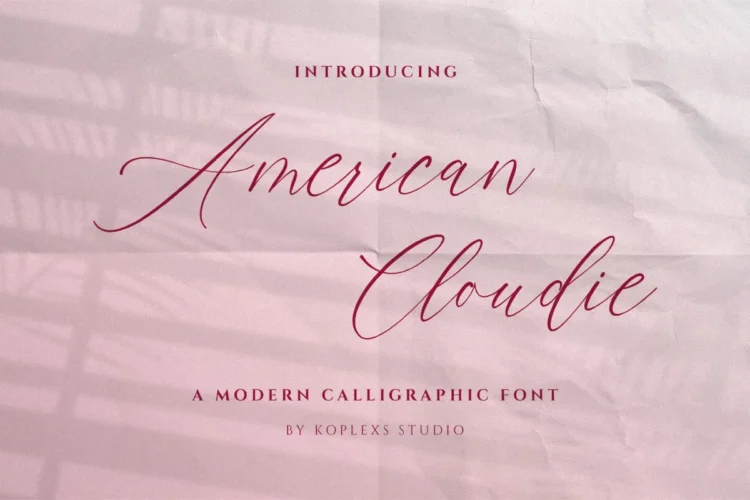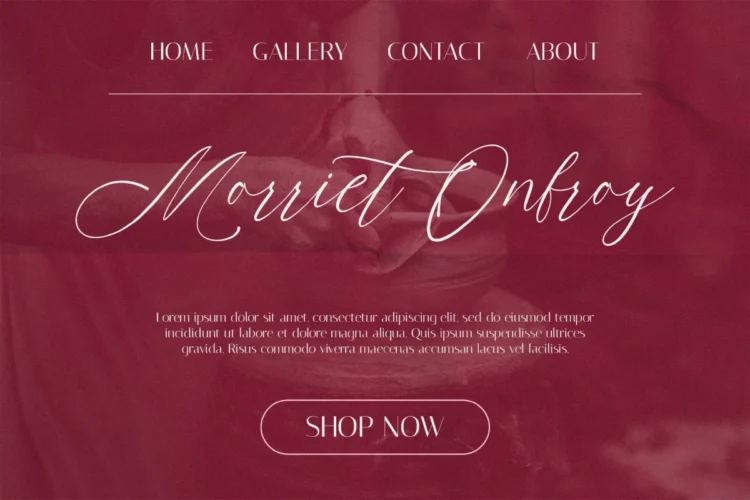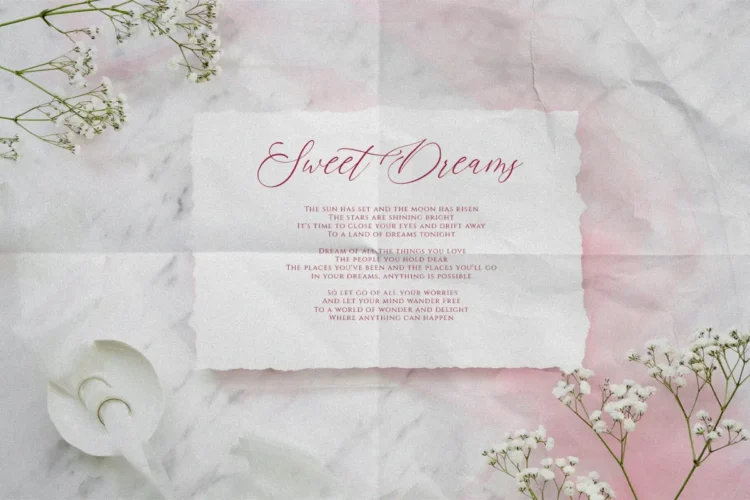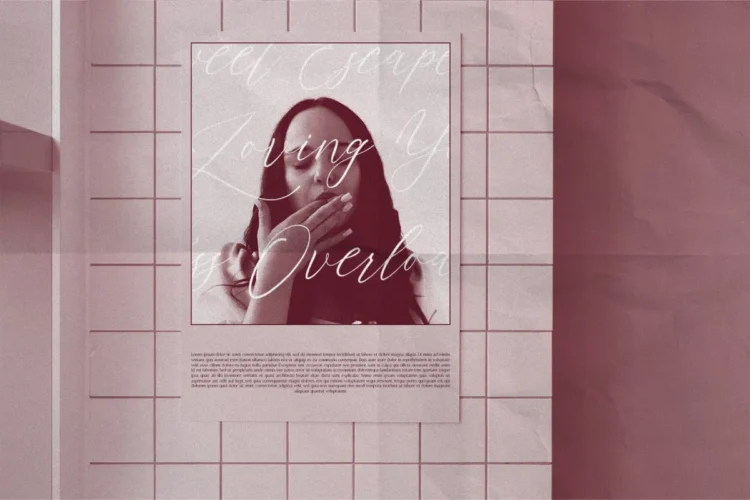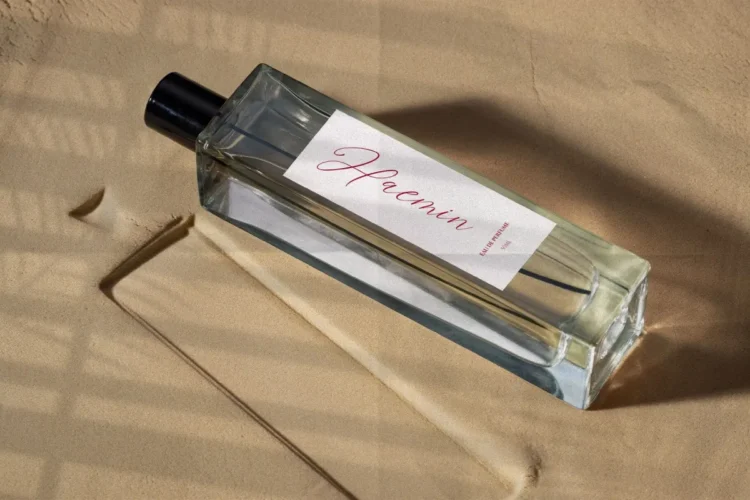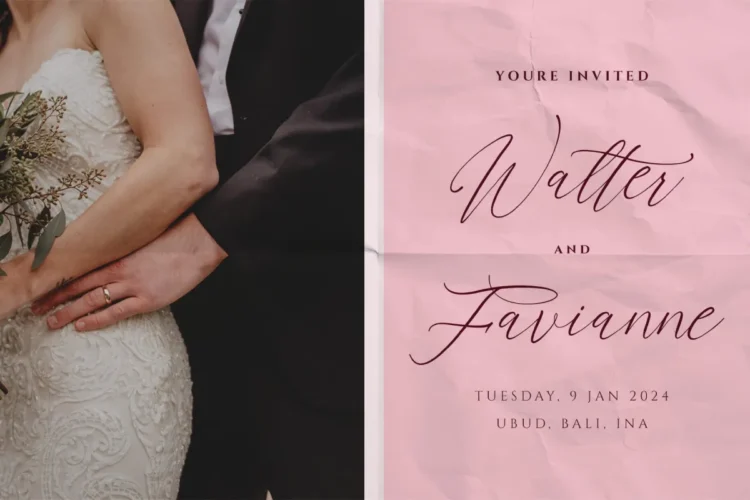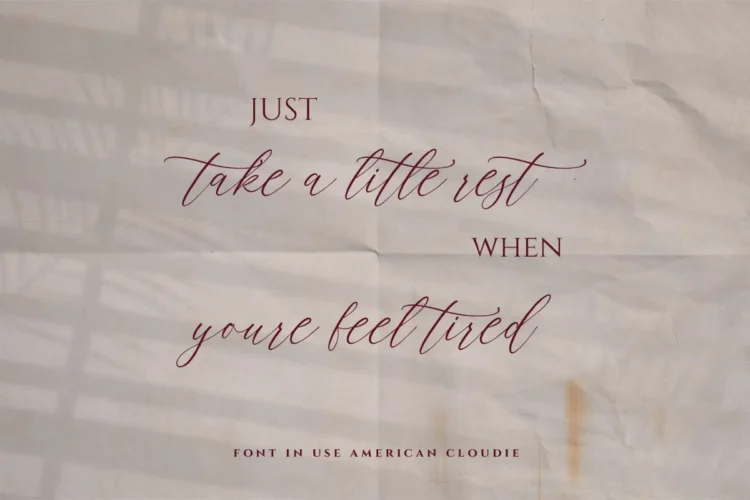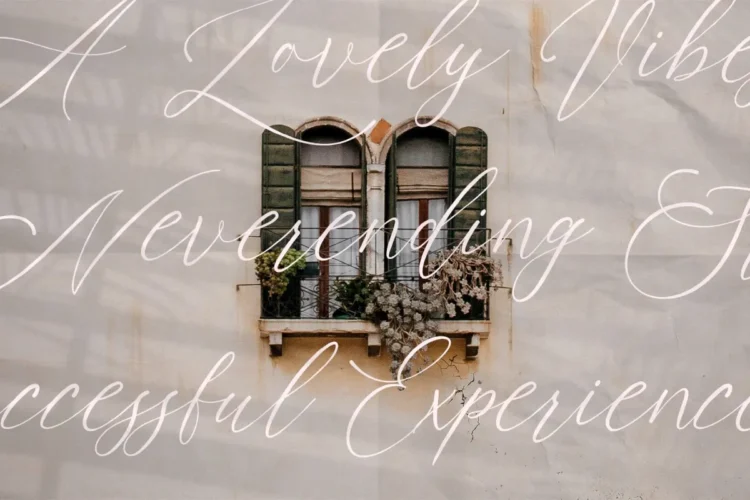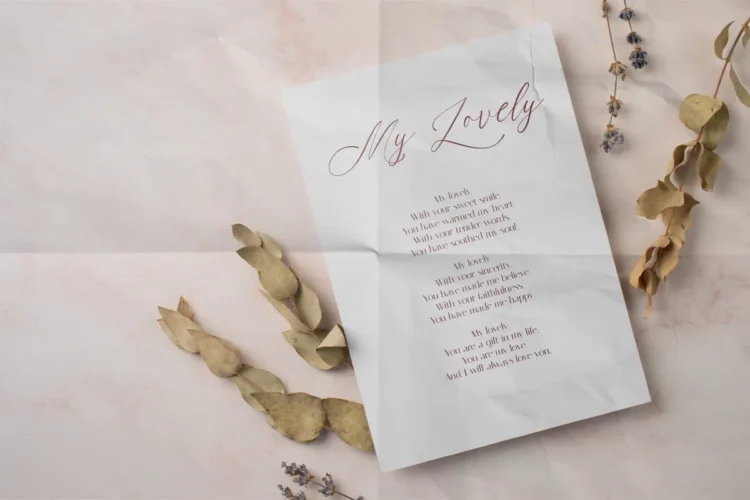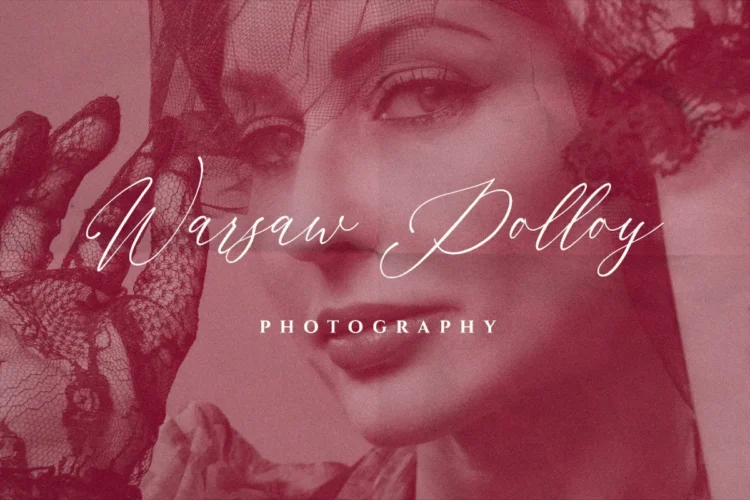
American Cloudie Font – Elegant Script & Modern Calligraphy Font for Wedding, Branding and Luxury Design
Crafted with delicate curves, flowing strokes, and a refined handwritten feel, this font delivers the perfect balance between modern elegance and natural beauty. Inspired by luxury branding and romantic calligraphy, American Cloudie is designed to make every design feel more personal, sophisticated, and unforgettable.
This script font carries the charm of authentic handwriting while maintaining the clean professionalism needed for modern creative projects. The smooth baseline and graceful letter connections create a soft and stylish appearance that instantly elevates your typography.
Whether you’re designing for a luxury brand, creating wedding stationery, or building a feminine visual identity, this Handwriting Font adds warmth and elegance without feeling overly formal. Its flowing style makes it ideal for creators who want their designs to feel premium, artistic, and effortlessly aesthetic.
American Cloudie Font is versatile and works beautifully for :
- Wedding invitations & bridal stationery
- Luxury logo design
- Beauty and cosmetic font branding
- Perfume packaging and skincare labels
- Fashion editorials and boutique branding
- Photography watermark signatures
- Social media quotes & Instagram templates
- Business cards and elegant packaging
- Website headers and modern typography layouts
- Romantic quote posters and aesthetic content
🌸 Why Designers Love American Cloudie Font
- Elegant and modern Calligraphy Font style
- Smooth natural strokes with authentic handwritten character
- Beautiful for feminine and luxury-themed projects
- Stylish Signature font appearance for personal branding
- Clean readability while keeping an artistic cursive flow
- Perfect blend of trendy aesthetics and timeless elegance